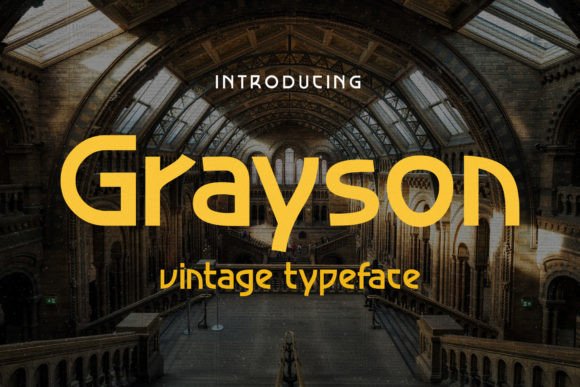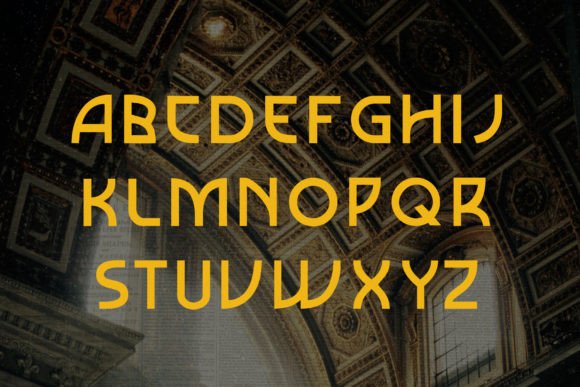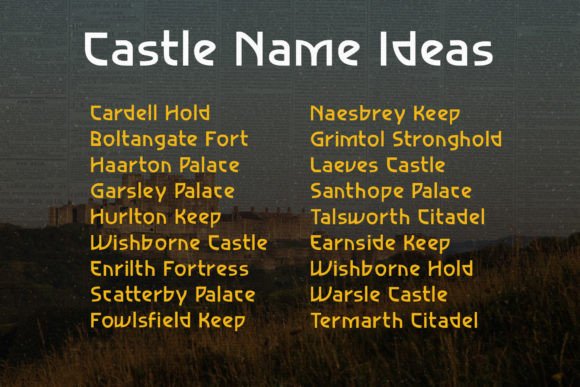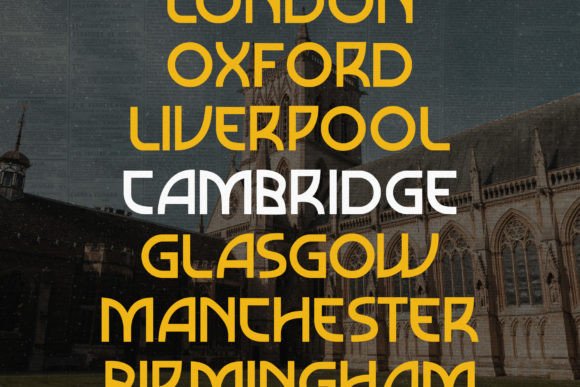
Grayson Font: A Retro Art Deco Typeface for Vintage Logo Design
About the Grayson Font
Step up your design game with Grayson Font, a font that exudes confidence and style. Grayson is a 1940s art deco typeface. The inspiration came from vintage store signs in London, New York, and other major cities. The font is clean and easy to read, and its letterforms are memorable which makes it perfect for branding. You can use this font for a wide variety of projects, possibilities are endless.
Grayson’s strong geometric forms and Art Deco influences make it ideal for headlines, logos, and short-form text in branding projects, posters, and packaging design where impact is key. Its clean readability also suits short, impactful website copy or menu designs. However, avoid using Grayson for body text or long paragraphs; its distinctive forms can become tiring to read in large blocks.
The font projects a confident, sophisticated personality, leaning towards modern elegance rather than playfulness. To complement this, consider pairing Grayson with a clean sans-serif like Helvetica Neue for body text or a more organic serif like Garamond for a touch of contrast and warmth. For a more modern feel, a geometric sans-serif like Futura could also work effectively.
A script font like Great Vibes could add a touch of vintage glamour, depending on the project’s overall aesthetic. Careful consideration of the context is needed when choosing pairings; the goal is always to maintain visual harmony while letting Grayson’s bold character shine.